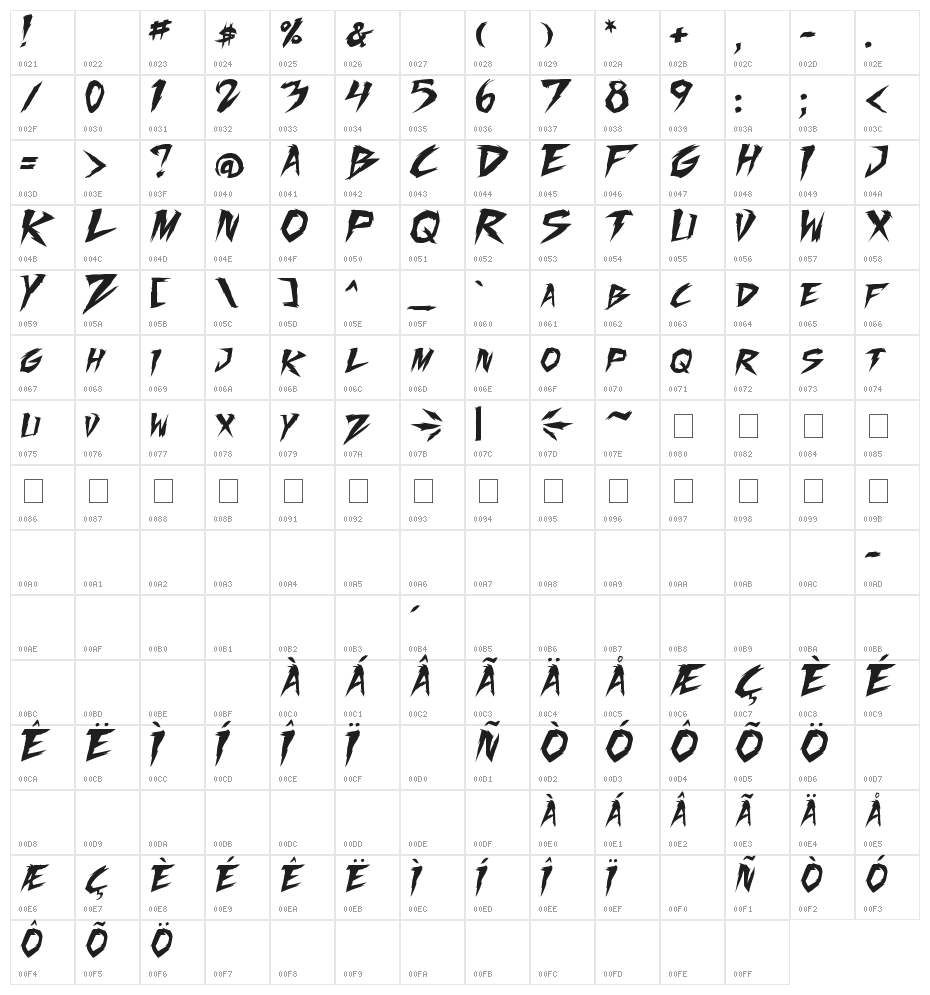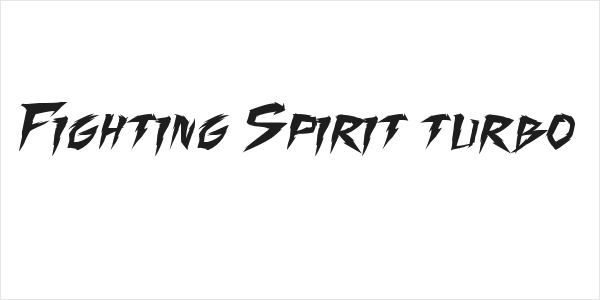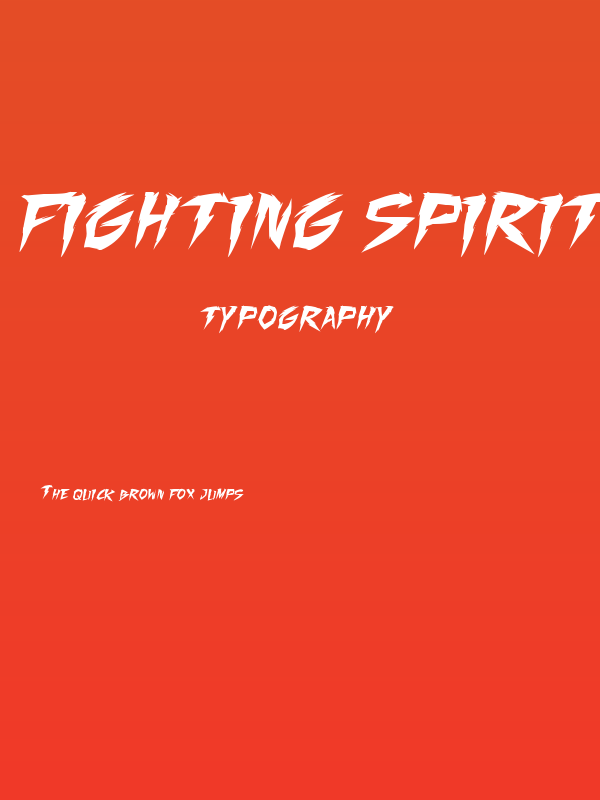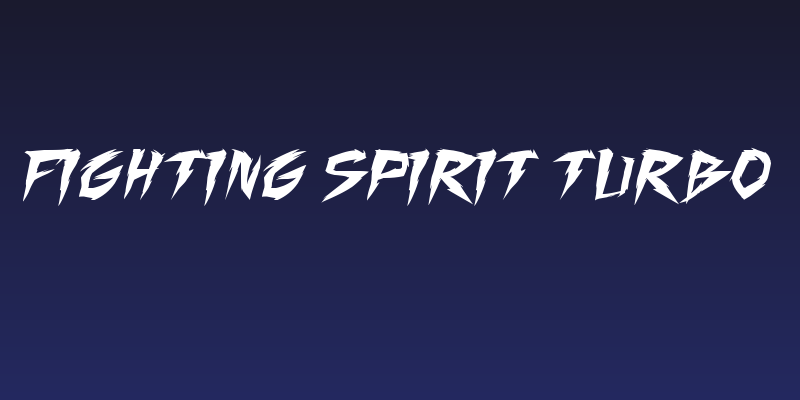
Fighting Spirit turbo Font
Fighting Spirit turbo Description
This font features a dynamic and aggressive style, characterized by sharp, angular lines and a bold presence. The letters are designed with jagged edges and a sense of movement, evoking a sense of energy and intensity. The uppercase and lowercase letters maintain a consistent style, with exaggerated strokes that give the font a distinctive, edgy appearance. The numbers and special characters follow the same design principles, ensuring a cohesive look across all glyphs. This font is ideal for projects that require a strong, impactful visual statement.
| Proposed Projects | Perfect for sports branding, action movie posters, video game titles, and any project needing a bold, energetic typeface. |